Fonts serve not only as a medium for conveying information but also as visual elements that build characters and design identities. A proper font selection can convey a certain impression, whether professional and modern or attractive and polished. The elegant serif font style is one of the most commonly used font types to convey this impression.
The elegant serif font style is known for its refined serif details, balanced letter proportions, and aesthetically pleasing letterforms. These characteristics allow it to convey a sense of luxury, sophistication, and reliability across a wide range of design projects. As a result, elegant serif fonts are widely used in logos, branding, product packaging, and editorial design to strengthen visual identity and enhance overall aesthetic appeal.
In this article, we will dive deeper into the elegant serif font style, starting with its characteristics and benefits and ending with its various design use cases. By understanding the characteristics, you can choose the most suitable font to create a design that is attractive, professional, and characterful at the same time.
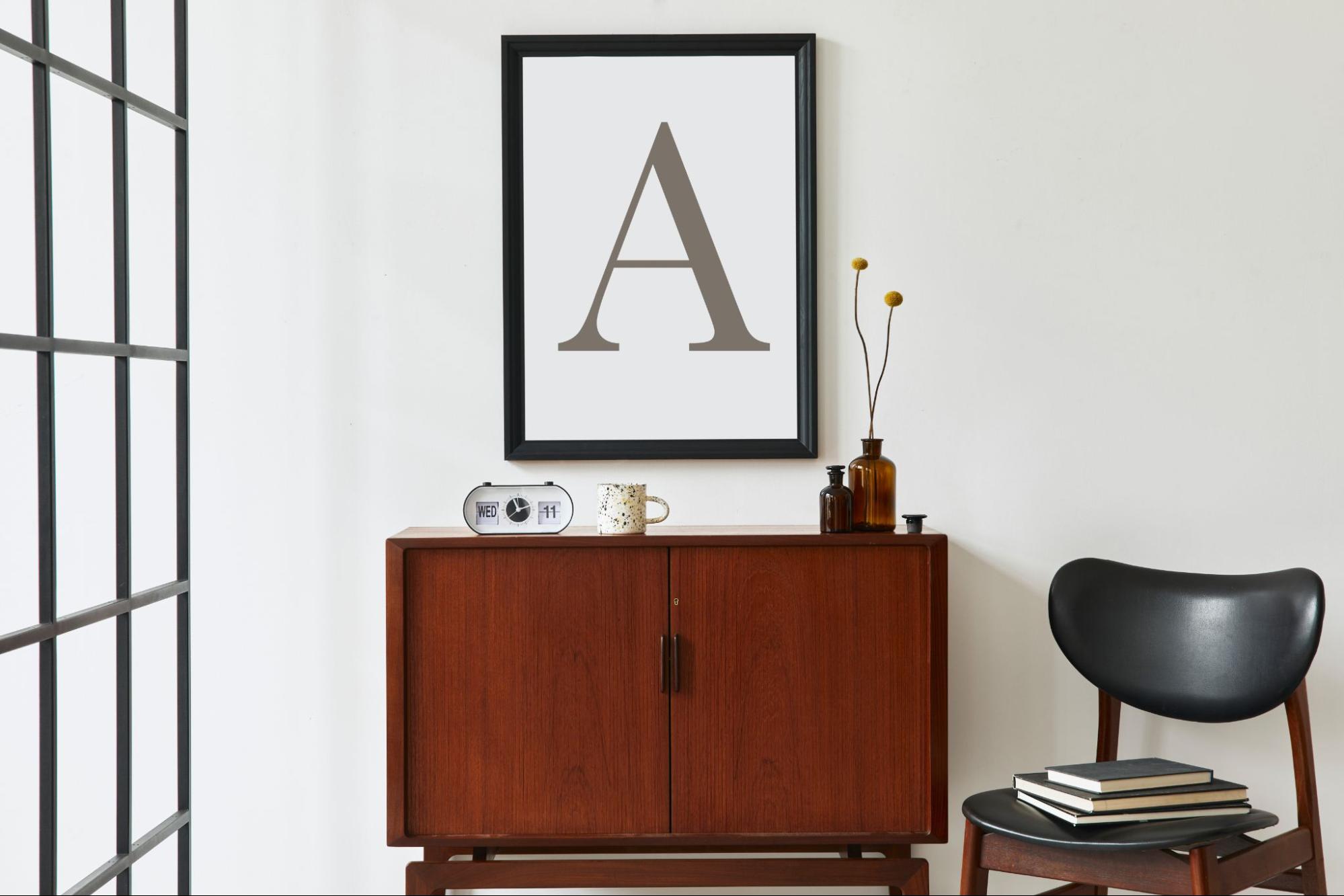
The elegant serif font style is a serif font type designed to present an elegant, professional, and classy visual appearance. This font type maintains the distinctive serif characteristics, including small lines in the letter edges. However, the designers have created the details of this font with smoother features and more balanced proportions. These characteristics make this font type commonly used to create a premium impression for various design needs.
Compared to other serif font styles, this font type has a more refined and aesthetic feel. Its incredibly neat serif details, proportional letterforms, and harmonious line contrast are the distinctive elements of the elegant serif font style. The combination of those visual characters is able to produce a luxurious appearance without compromising readability.
Because it can create an exclusive and trustworthy impression, this font is widely used in designs that prioritize professionalism and esthetics. This font is often applied to logos, branding, product packaging, editorial design, and various promotional materials to strengthen visual identity and enhance the overall appeal of the design.
The elegant serif font style has various visual characteristics that differentiate it from other types of fonts. These characteristics contribute to an elegant, professional, and classy appearance that meets various design needs. The combination of proper typography details also makes this font type able to present a stronger and more appealing visual identity. The following are some key characteristics of an elegant serif font.
One of the main characteristics of this font type lies in its smooth and neat serif details in each of its letters. The serif is designed with a precision that can create an elegant look without looking too much. The details provide a more refined visual touch, allowing the font to look more professional and have a high aesthetical value.
This font has a letter proportion designed in a balanced manner, resulting in a harmonious appearance. The balance between height, width, and the spacing between letters helps increase readability. Moreover, it also creates such a text arrangement that is comfortable to see. The characteristic makes this font look appealing while being applied in various design media and sizes.
Another characteristic often found in an elegant serif font is the contrast of thick and thin lines that is harmonious. The thickness difference provides a visual dimension that is more dynamic, creating a lively and characterful letterform. Aside from enhancing the visual appeal, a proper line contrast helps create a luxurious sense in a design.
Elegant serif fonts are known for their timeless look. The combination of classic elements and modern touches makes this type of font relevant for various visual needs. Hence, using this font type is ideal for designs seeking to maintain elegance, professionalism, and class for a long term.
Using an elegant serif font enhances the design aesthetic and provides various benefits that improve the effectiveness of visual communication. The distinctive typography character of this font type makes it a popular choice for creating an appealing, classy, and professional look. The following are some benefits of using an elegant serif font in your design.
An elegant serif font creates a more professional and reliable impression. Its neat, elegant letterforms make a design look more credible in the audience’s eyes.
The distinctive characters of these font types help a brand appear more consistent and easily recognizable. Using it can also strengthen the image one brand wishes to convey to the audience.
Smooth serif details and balanced letter proportion make this font look visually appealing. These traits help enhance the visual quality of any design without sacrificing readability.
This serif font type can be used in various design media, starting from logos and branding to product packaging and editorial design. Its flexibility is perfect for various visual design needs.
The elegant character makes this typography style able to evoke a premium and exclusive impression in any design. Many designers use this font, especially when they want to create a luxurious, classy image in their work.
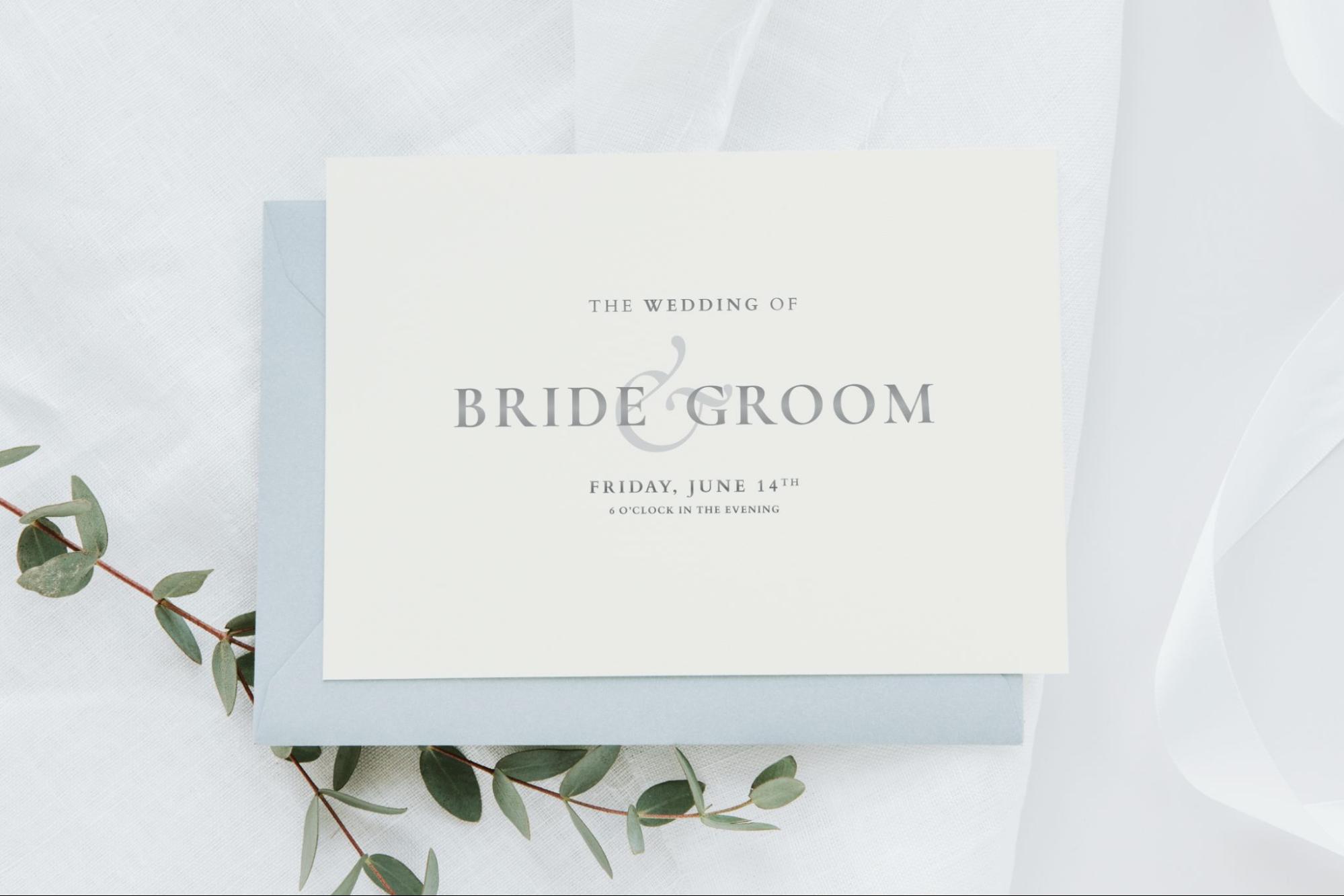
Elegant serif fonts are widely used across various design applications thanks to their refined, professional, and timeless character. Their versatility also makes them suitable for both print and digital media. Below are some common ways elegant serif fonts are applied in design.
Many brands use elegant serif fonts to build a strong and classy visual identity. The premium character helps create a professional impression as well as strengthening the brand image in the audience’s eyes.
Using this font style in a packaging design can improve the product’s visual appeal. The neat and premium letter appearance also helps create a higher perception quality.
This font type is used in editorial designs, such as magazines, catalogs, and books, to create a professional and comfortable reading experience. The visual character also helps increase the page layout aesthetic.
The elegant character of this font type makes it perfect for designing invitations, greeting cards, and various stationery needs. This font style is able to give both a formal and classy impression at the same time in any design.
Aside from print media, this typography style is also perfect for websites and digital media. Its use in headings or as the key visual element can help create a more appealing look while simultaneously strengthening the brand identity.
Choosing the proper elegant serif font requires understanding its characters and the desired design purpose. Each font has different visual characteristics. Therefore, the selection of fonts should be tailored to the design concept and brand identity. Besides that, designers should pay attention to the readability level of the font so that text can be clearly and comfortably read in various sizes.
The media is also a crucial factor in choosing the font. A font may look appealing in print media but may not be so in digital. Besides that, the use of the right supporting font also helps create a clearer and more balanced visual hierarchy.
Elegant serif fonts offer an elegant, professional, and classy appearance for various design needs. Smooth serif details, balanced letter proportion, and timeless visual characters of this font type make it perfect for strengthening the visual identity and enhancing the design appeal. Additionally, designers can use this typography in various media, starting from branding and product packaging to editorial designs and digital media.